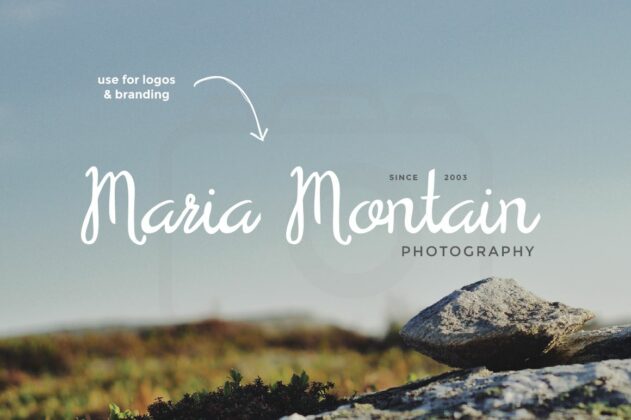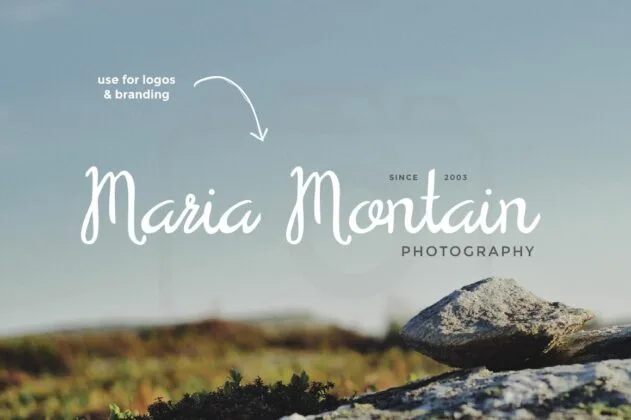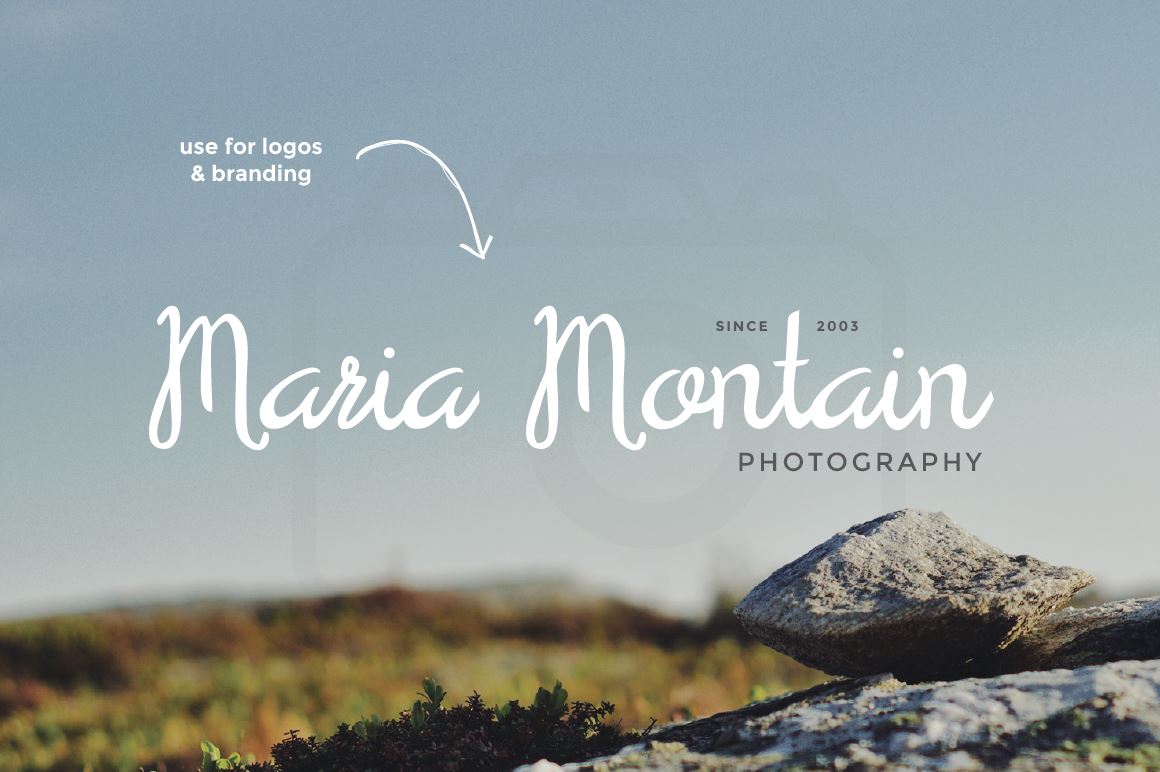
About A Serendipity Font
Serendipity is a new hand written font for 2015. Available for both personal and commercial use. No extended license is required. Download and use Serendipity Script for anything and everything. Including over 90 different hand drawn characters for a range of languages and dialects. WHATS INCLUDED? Serendipity.otf Serendipity.ttf Web fonts included (EOT, SVG, WOFF & WOFF2 Files) An installation guide for both Windows and Mac computers. Download within a few clicks and use across a huge range of programs including Photoshop, InDesign, Illustrator and Microsoft Word as well as many more. Not sure how to install a font? No problem. We have included a free installation guide explaining how to install our font on both a windows PC or MAC. If you have any questions or problems, please don’t hesitate to message me.